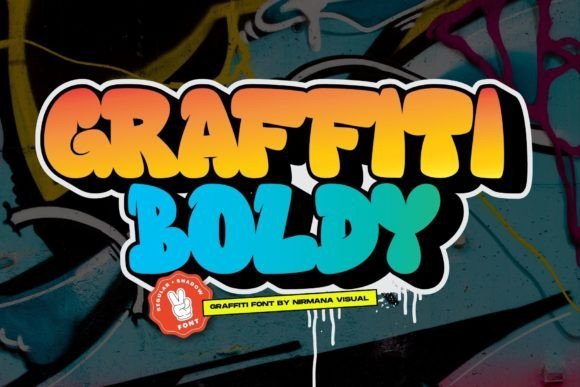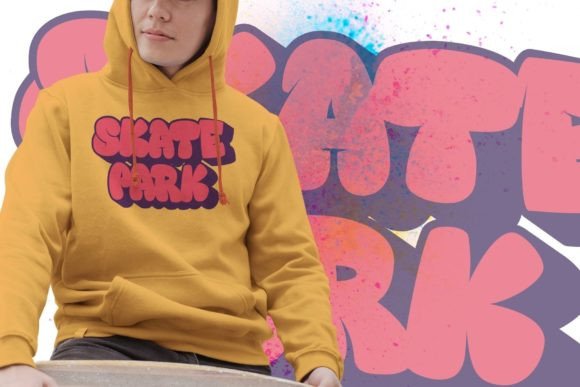
The Power of Graffiti Boldy Font: Elevate Your Creations
Do you remember the thrill of brainstorming a new project, and suddenly, an idea sparks that sets your creative juices flowing? The rush of excitement, the rush of possibilities – it’s exhilarating! For designers, this moment is a regular occurrence, and the right tools can make all the difference. That’s where the Graffiti Boldy Font comes in – a fun, urban-style display font that adds a touch of personality to any creation.
This versatile font is more than just a visual element; it’s a game-changer. Whether you’re working on a bold marketing campaign, a striking social media graphic, or an eye-catching poster, the Graffiti Boldy Font has the potential to elevate your design to new heights. Its unique style and character make it an invaluable asset to any designer’s library, and its boldness is sure to leave a lasting impression.
Graffiti Bold Font Key Features
- Font Family: Graffiti Bold is a bold, graffiti-inspired font that adds a touch of urban flair to any design.
- Unique Characteristics: Graffiti Bold features a bold, graffiti-inspired design with rounded edges and a distressed texture, adding a unique touch to any design.
- Character Set: Includes a comprehensive character set, including uppercase and lowercase letters, numbers, and punctuation marks, making it suitable for a wide range of applications.
Graffiti Boldy Font Review
Graffiti Boldy Font is a unique and playful font that can add a lot of personality to your designs ✨. It’s perfect for creating eye-catching headings, titles, or even entire brand identities. The font’s bold and vibrant style is sure to grab attention and make your content stand out.
Here are some things that work well with Graffiti Boldy Font:
- Unique and playful style ✨
- Perfect for creating bold headings and titles
- Can be used for brand identities and logos
- Great for creating a fun and energetic atmosphere
- May not be suitable for formal or professional designs ⚠️
- Can be difficult to read in smaller font sizes
Overall, Graffiti Boldy Font is a great choice for designers who want to add a bit of personality and fun to their designs. However, it’s not suitable for every project, and you should carefully consider the context and audience before using it.
The Graffiti Boldy Font is perfect for creating bold and eye-catching designs, such as:
- Street art and graffiti-inspired designs.
- Urban and edgy branding.
- Music festival and concert posters.
Remember to use the font in moderation and balance it with other design elements to avoid overwhelming your audience.
Alternatives to Graffiti Boldy Font for Designers
1. Impact Font
The Impact font is a sans-serif font known for its bold and dramatic appearance. It is often used for titles, headings, and other display text where a strong visual impact is desired. Impact font is similar to Graffiti Boldy in its bold and eye-catching nature, but it lacks the playful and casual feel of Graffiti Boldy. It’s a better choice for formal or professional designs where a bold, yet clean look is needed.
2. Arial Black Font
Arial Black is a sans-serif font that is similar to Graffiti Boldy in its bold and modern appearance. However, it is more neutral and less playful than Graffiti Boldy. Arial Black is a good choice for designs where a bold, yet clean and professional look is needed. It’s a good alternative to Graffiti Boldy when a more conservative approach is desired.
3. Comic Sans MS Font
Comic Sans MS is a sans-serif font that is known for its casual and playful appearance. It’s similar to Graffiti Boldy in its friendly and approachable feel, but it’s more suitable for informal or humorous designs. Comic Sans MS is a good choice for designs where a lighthearted and approachable tone is needed, but it may not be suitable for formal or professional designs.